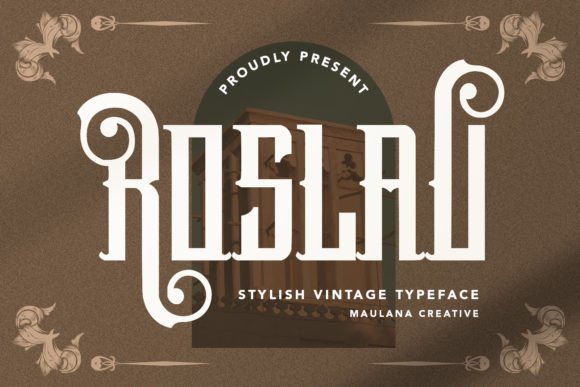
Unleash the Timeless Allure of Roslav: A Font Family Steeped in History and Elegance
In a world clamoring for individuality, Roslav, a blackletter font family, emerges as an enchanting symphony of visual aesthetics and historical charm, ready to captivate the hearts of discerning designers and typographers. Immerse yourself in a font collection that exudes sophistication, making a statement in any creative endeavor you embark upon.
Meticulously crafted by the visionary minds at Maulana Creative, Roslav embodies the essence of timeless elegance, paying homage to the beauty of classic typography while injecting a touch of contemporary flair. Each letterform, meticulously designed with bold contrast strokes and playful ligatures, narrates a tale of artistry and precision.
With Roslav, your creative projects transcend the realm of the ordinary, transforming into captivating masterpieces that command attention. Its versatility knows no bounds, effortlessly adapting to a myriad of design applications, from attention-grabbing logos and social media posts to movie titles, book covers, and even lengthy texts.
As a secondary font, Roslav harmonizes seamlessly with sans serif and serif fonts, adding depth and intrigue to your visual compositions. Its ability to effortlessly complement other fonts makes it an indispensable tool for designers seeking to create cohesive and visually stunning designs.
Roslav unlocks a world of creative possibilities, empowering you to craft captivating posters that transport viewers back in time, academic documents that exude scholarly charm, and branding materials that leave a lasting impression. Unleash your imagination and delve into the boundless potential of this extraordinary font family.